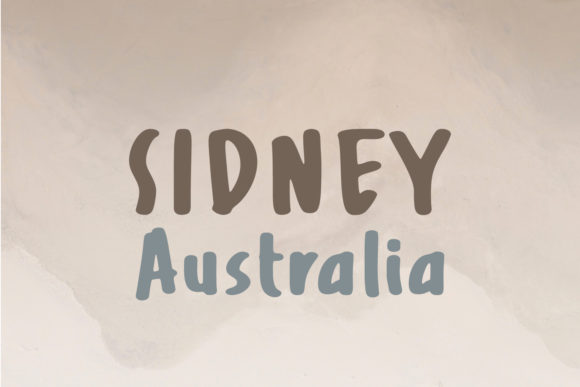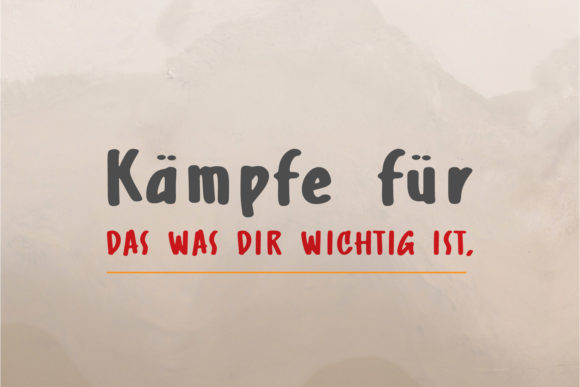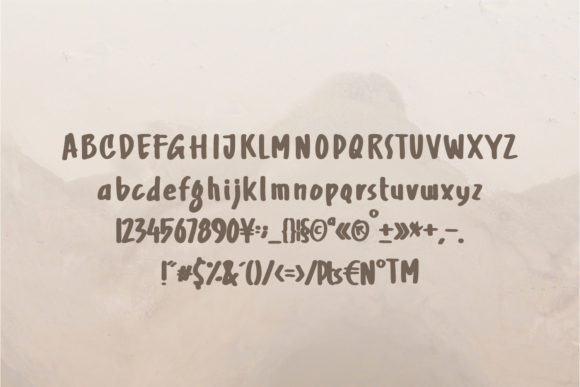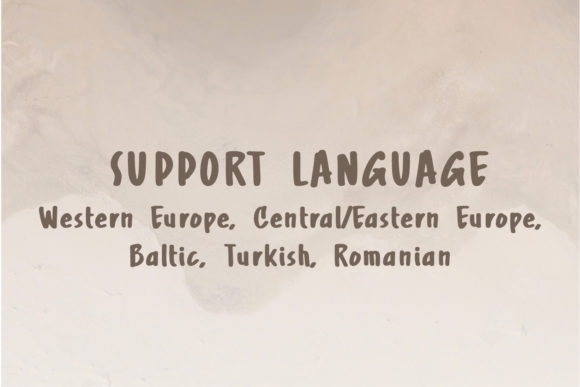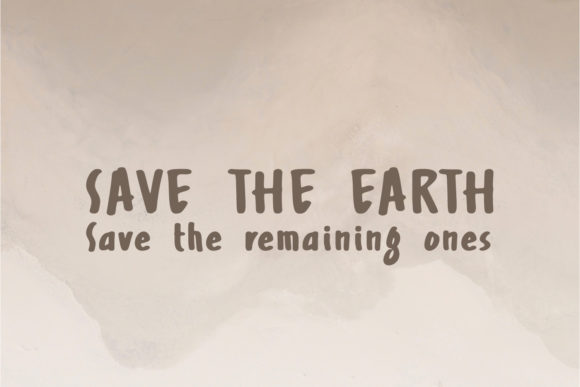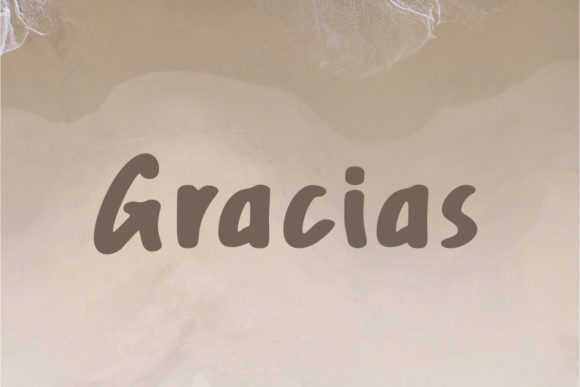
The Designer’s Delight: Gisele Font
I’ll never forget the time I was working on a project for a client who wanted a bold, eye-catching font to match their brand’s personality. I spent hours scouring through font libraries, but nothing seemed quite right. That was until I stumbled upon Gisele – a bold handwritten font that instantly took my designs to the next level! 🚀
What I Love About Gisele
- ✨ Unique and bold: Gisele’s handwritten style adds a touch of personality to any design.
- ✅ Highly legible: Despite its bold nature, Gisele remains easy to read, even at smaller font sizes.
- 💡 Versatile: Perfect for titles, headings, and emphasis, Gisele can be used in a variety of design contexts.
While Gisele is an excellent font, there are a few things to keep in mind: 🤔
- ⚠️ Limited use in body text: Due to its bold nature, Gisele might not be the best choice for lengthy paragraphs.
- ⚠️ Some letter spacing issues: You may need to adjust letter spacing for optimal results, especially in certain word combinations.
Gisele comes with a range of OpenType features and glyphs that can elevate your designs. Look for:
- Stylistic alternates: Swap out letters for alternate styles.
- Ligatures: Combine letters for a more fluid look.
- Glyphs: Access special characters and ornaments.
The Story Behind Gisele
Gisele was designed with the intention of creating a bold, yet approachable font. Inspired by the elegance of handwritten scripts and the playfulness of modern typography, Gisele’s creator aimed to craft a font that would add a touch of personality to any design.
| Font Name | Gisele Font |
| Author | Cititype |
| What type of designs is Gisele best suited for? | Gisele excels in designs where a bold, eye-catching font is needed, such as titles, headings, and emphasis. |
| Is Gisele a versatile font? | Absolutely! Gisele can be used in various design contexts, from digital graphics to print materials. |
| Can I use Gisele in combination with other fonts? | Yes, Gisele pairs well with many fonts. Experiment with different combinations to find the perfect match for your design. |